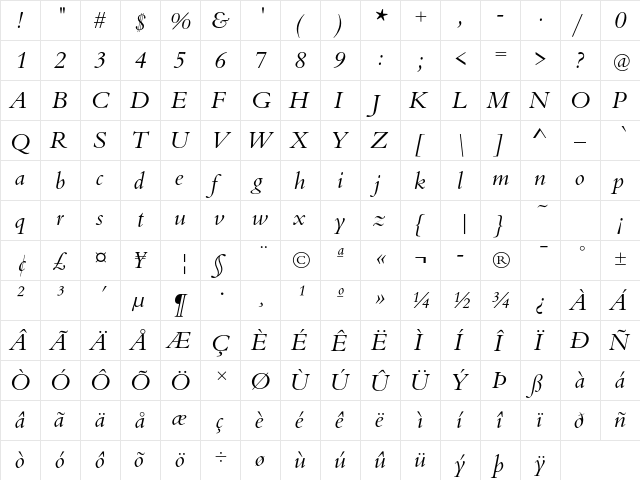
Bergamo Std Italic
Design Context for Bergamo Std Typeface
Bergamo Std offers clean, dependable letterforms without strong stylistic allegiance, making it a practical choice for designers who need flexibility. The slanted form adds forward momentum and visual energy.
Pro Tip: Try Bergamo Std for annotation and caption copy alongside an upright companion — the contrast in angle creates a dynamic but ordered typographic system.